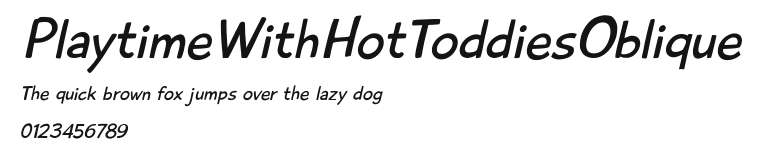
PlaytimeWithHotToddiesOblique Preview
• Font Name: PlaytimeWithHotToddiesOblique
• Font ID: PlaytimeWithHotToddiesOblique
• Full Font Name: PlaytimeWithHotToddiesOblique
• PostScript Name: PlaytimeWithHotToddiesOblique
• Character Count: 216
About PlaytimeWithHotToddiesOblique.ttf
PlaytimeWithHotToddiesOblique.ttf is a modern, elegant sans-serif font designed for ultimate readability and visual harmony. Perfect for branding, headlines, web design, and print materials.